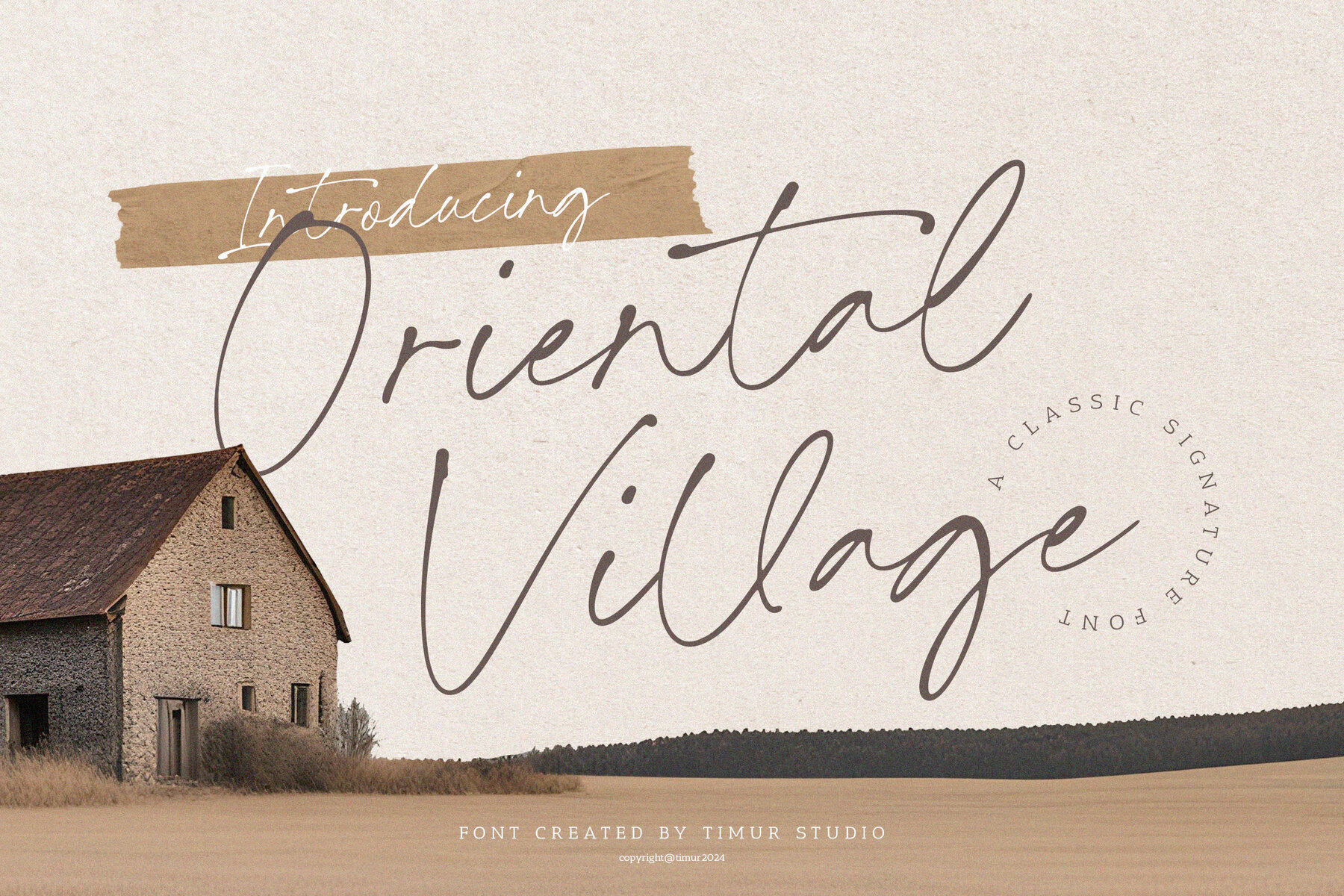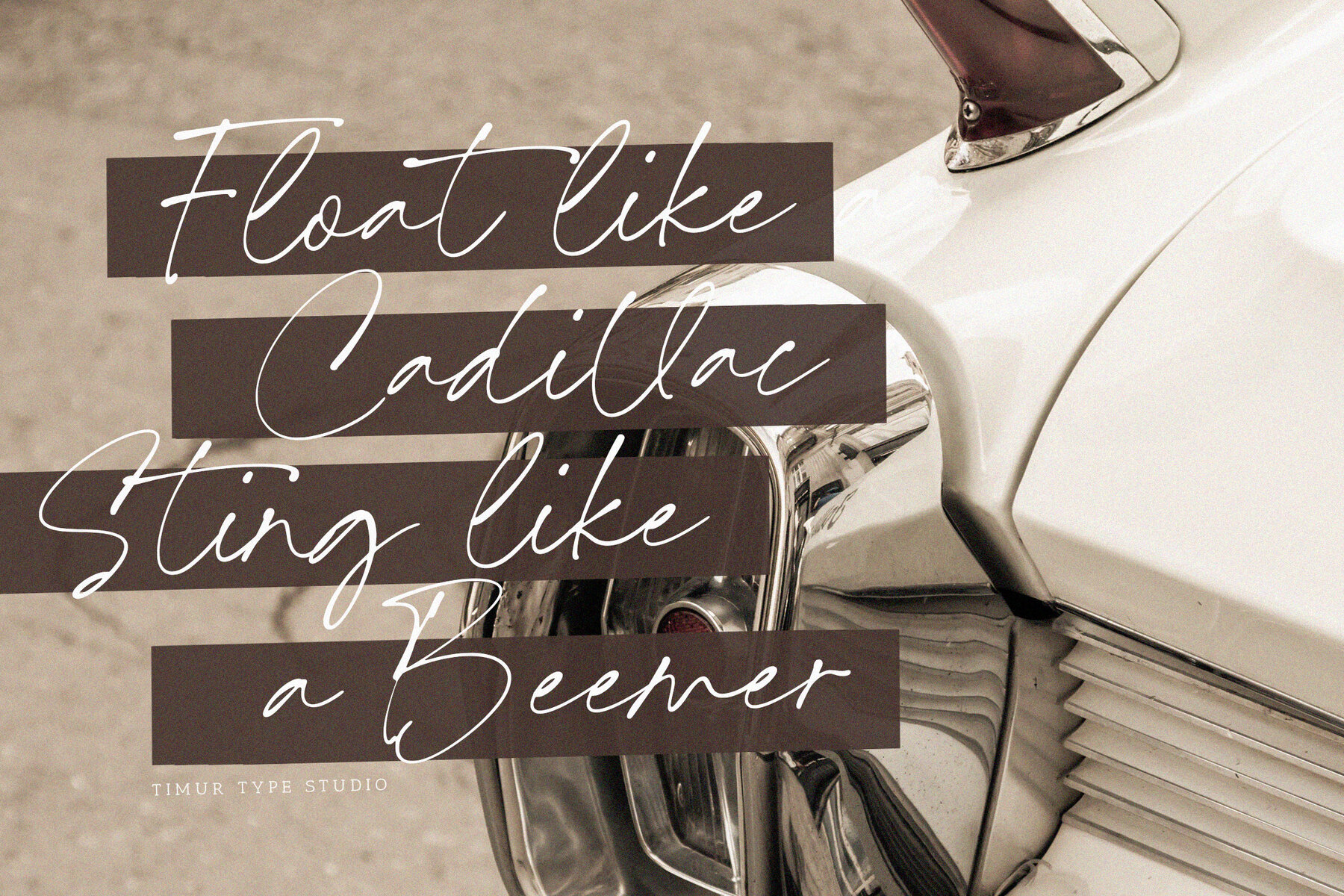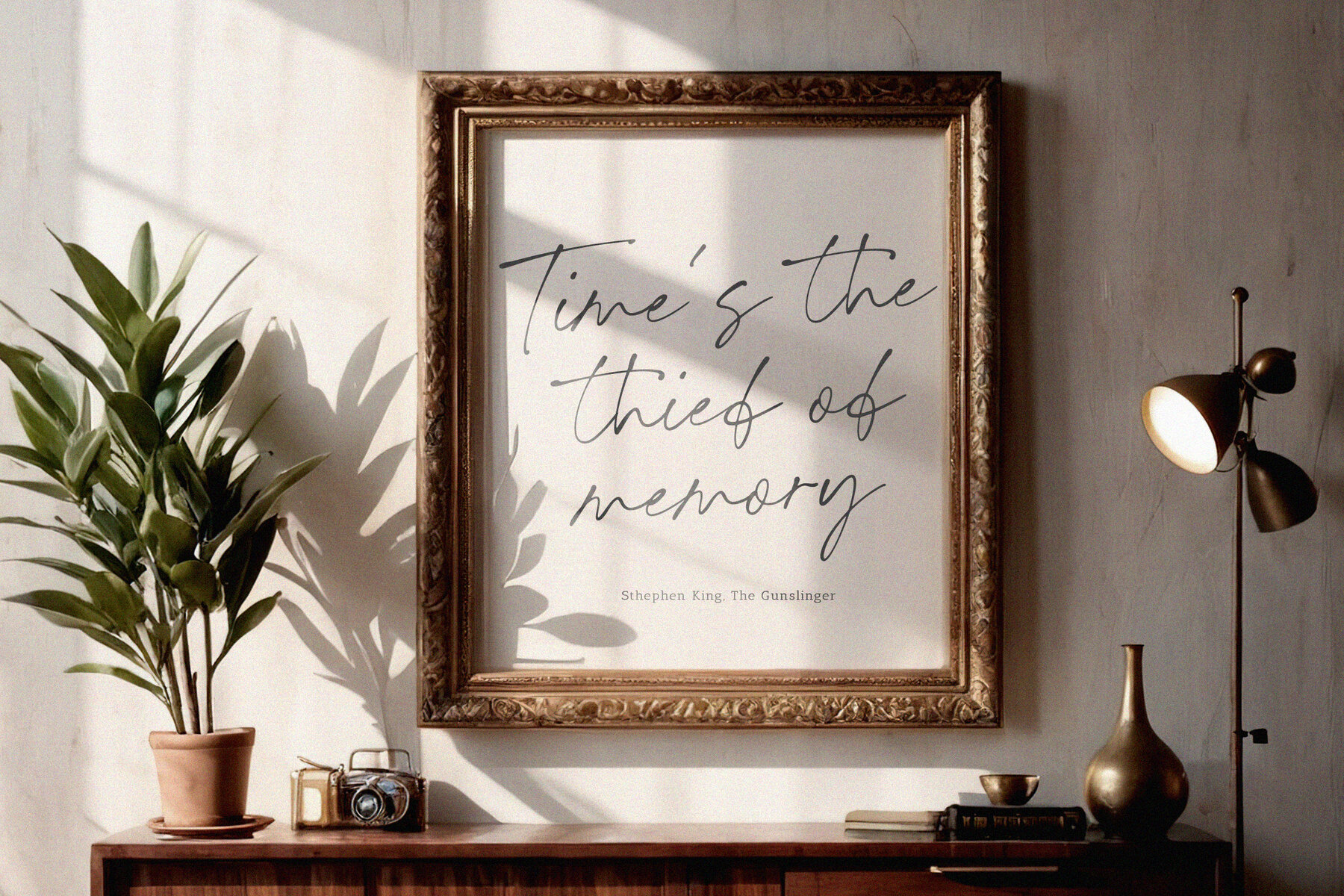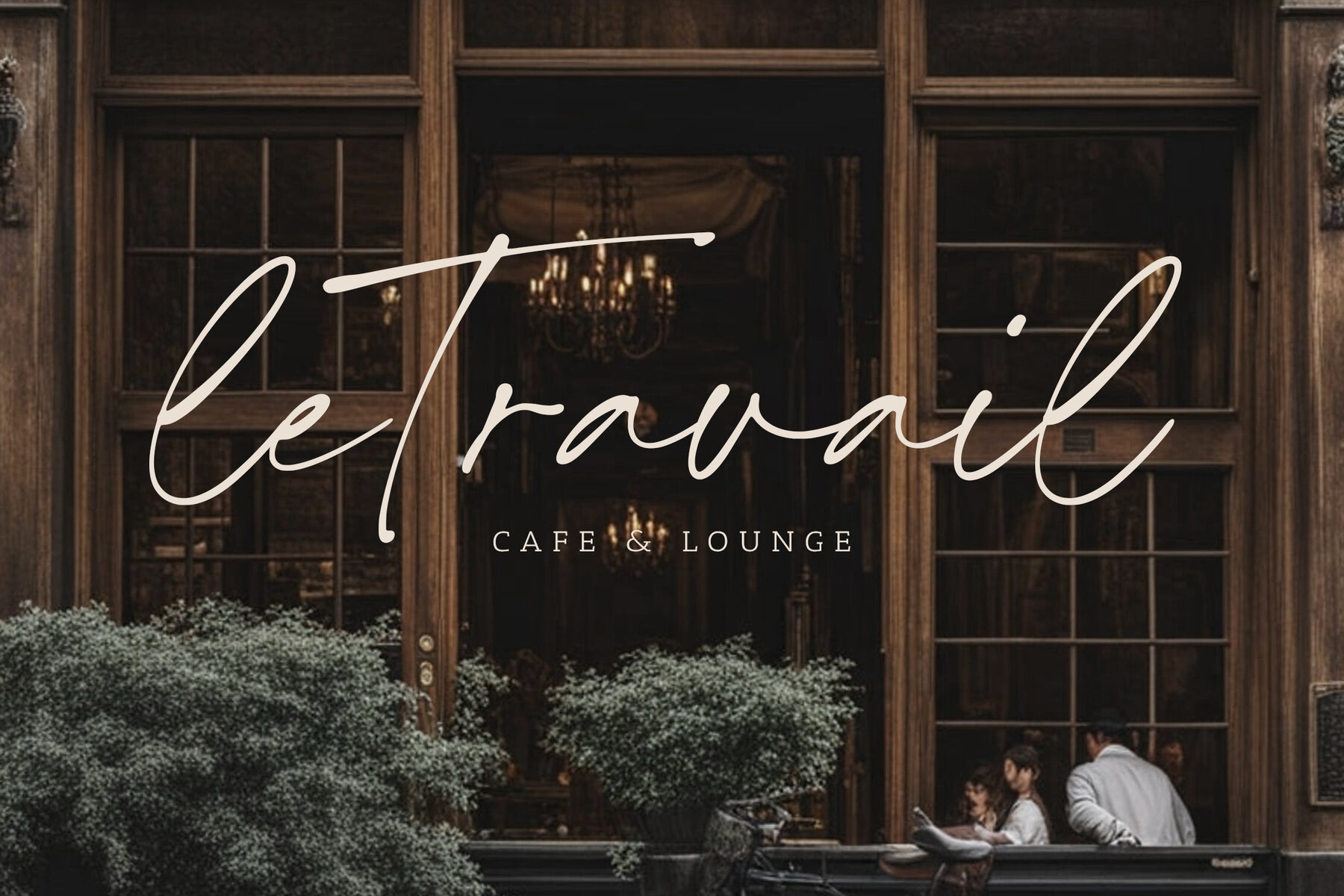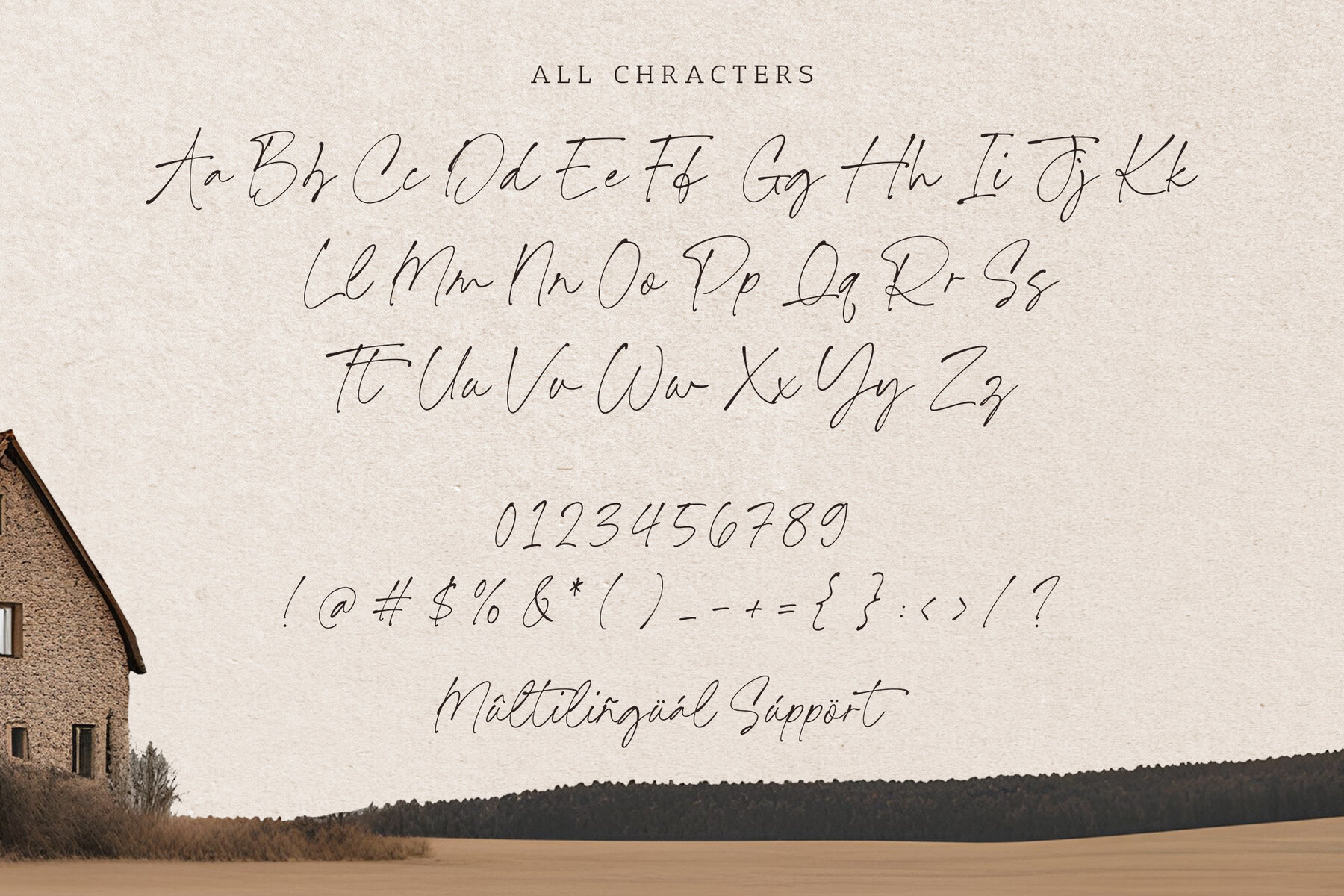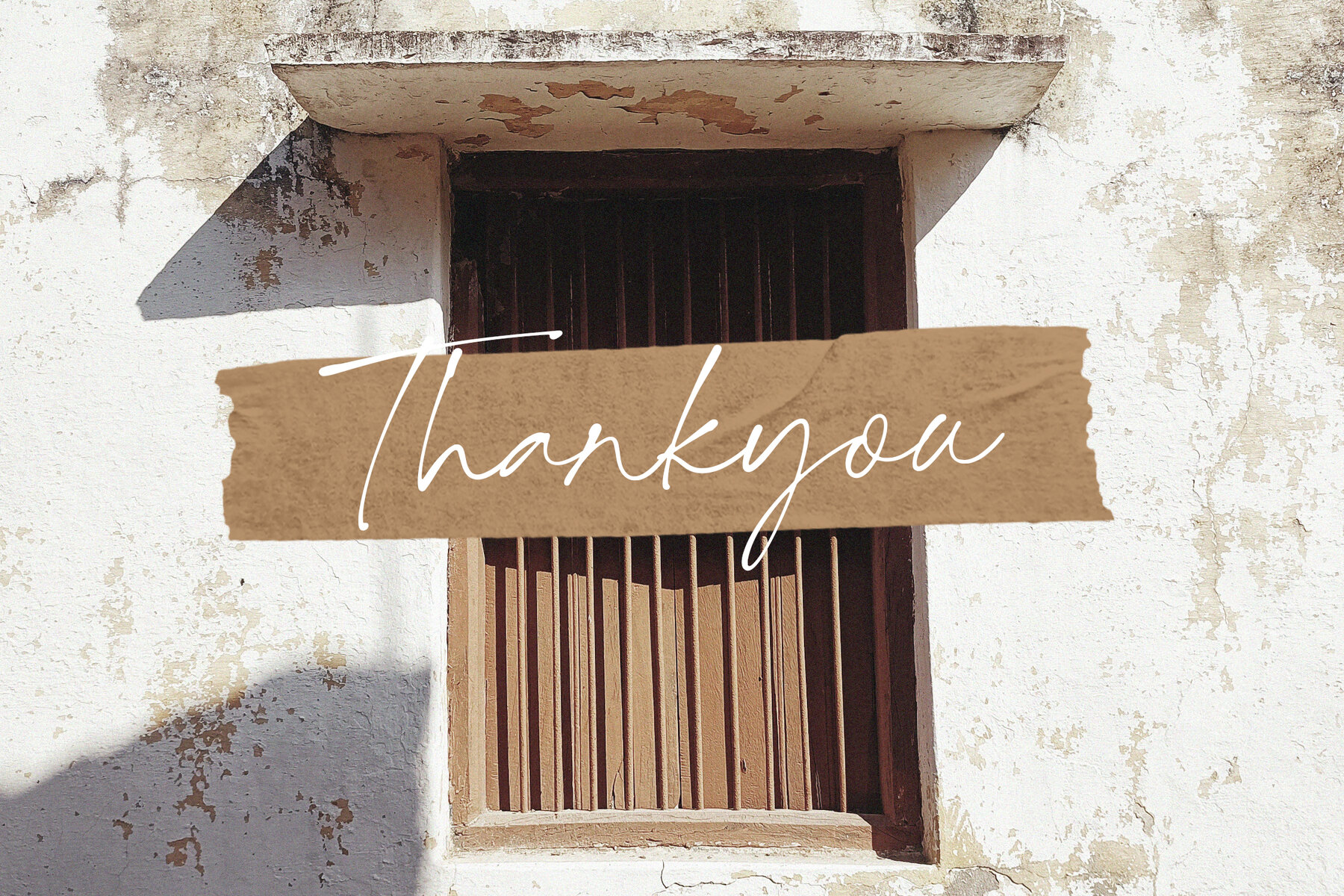
Oriental Village Font
Oriental Village
Oriental Village is a classic signature font that epitomizes timeless sophistication and elegance. Characterized by its refined and delicate letterforms, this font captures the grace and charm of a handwritten signature. Its flowing and ornate strokes bring a luxurious and glamorous aesthetic, making it ideal for high-end branding, invitations, and luxury packaging designs.
This versatile font can enhance both vintage-inspired and contemporary chic projects, offering beauty and adaptability. Embrace the timeless allure of Oriental Village to infuse your designs with refined elegance and sophistication.